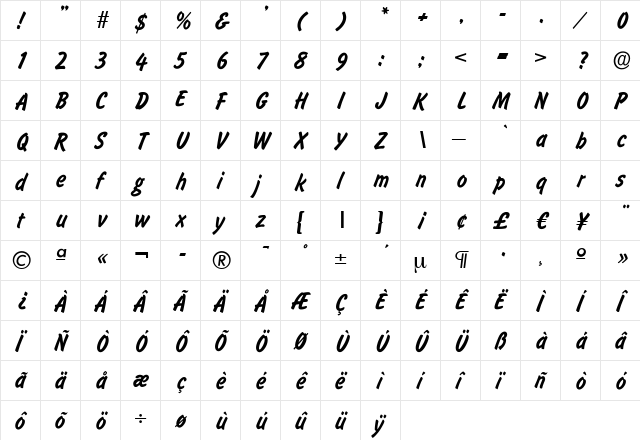
LisaBecker Regular
Design Context for LisaBecker Typeface
LisaBecker is a composed and adaptable typeface that performs quietly and consistently across a wide range of design contexts.
Pro Tip: Use LisaBecker in both headline and body roles to test its range before committing to a single application.